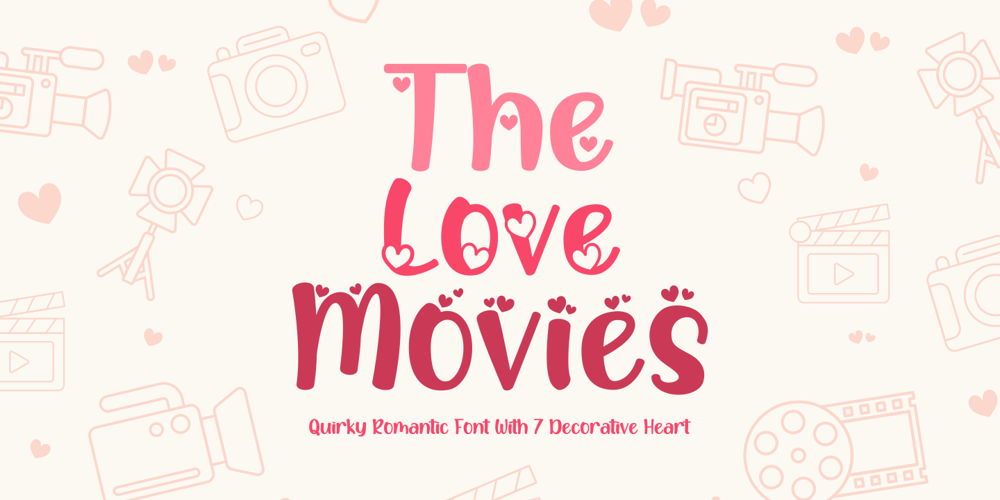
The Love Movies Font Family was designed by Putra Novembria Candra Kusuma and published by Putracetol. The Love Movies contains 7 styles and family package options. The Love Movies is a quirky love font with 7 different versions of the font, the difference between each version is in the shape of the heart decoration. This font is basically soft and fun, and coupled with heart decorations of various shapes and choices, will make this font suitable for the projects you are working on, especially those themed on love, valentine, children, babies, weddings, etc.In addition, this font is also suitable for invitation cards, greeting cards, logos, branding, posters, crafting, stickers, social media, packaging, headers, merchandise and others.This font is also support multi language.